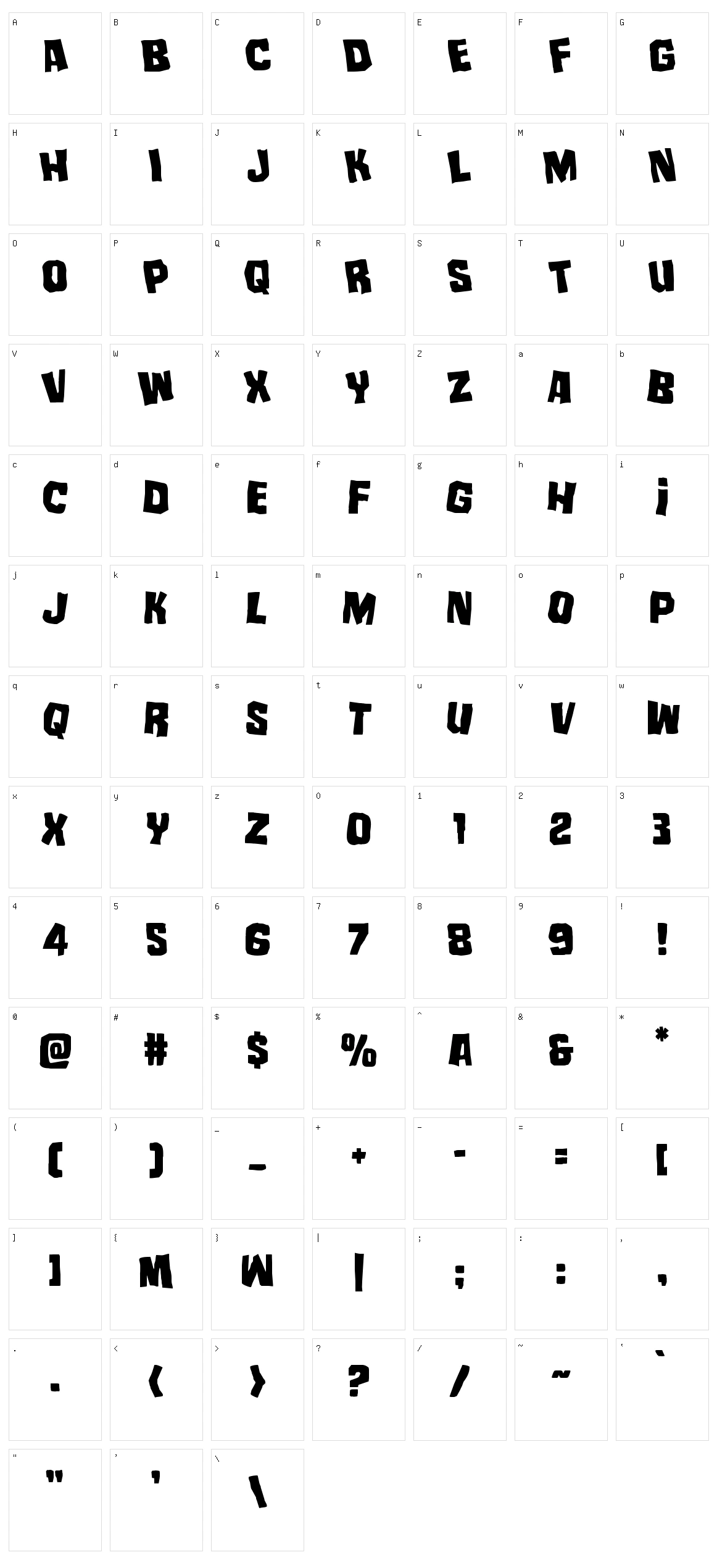
The free font Mister Twisted is carefully designed by Iconian Fonts, showcasing a thoughtful balance of creativity and usability and falls under the Horror font style. When you download the ZIP file, it contains only 955.63 KB of font files, making it lightweight and quick to download. Please review the license details below to understand permitted usage and distribution rights. If license information is not available, we recommend using this font for personal projects only or contacting the author directly for commercial usage permissions.
This font comes with the following 21 versions: Regular, Italic, Condensed, Condensed Italic, Expanded, Expanded Italic, 3D, 3D Italic, Rotated, Rotated 2, Rotalic, Staggered, Staggered Italic, Staggered Rotated, Staggered Rotalic, Warped, Warped Italic, Warped Rotated, Warped Rotalic, Lean and Leftalic.